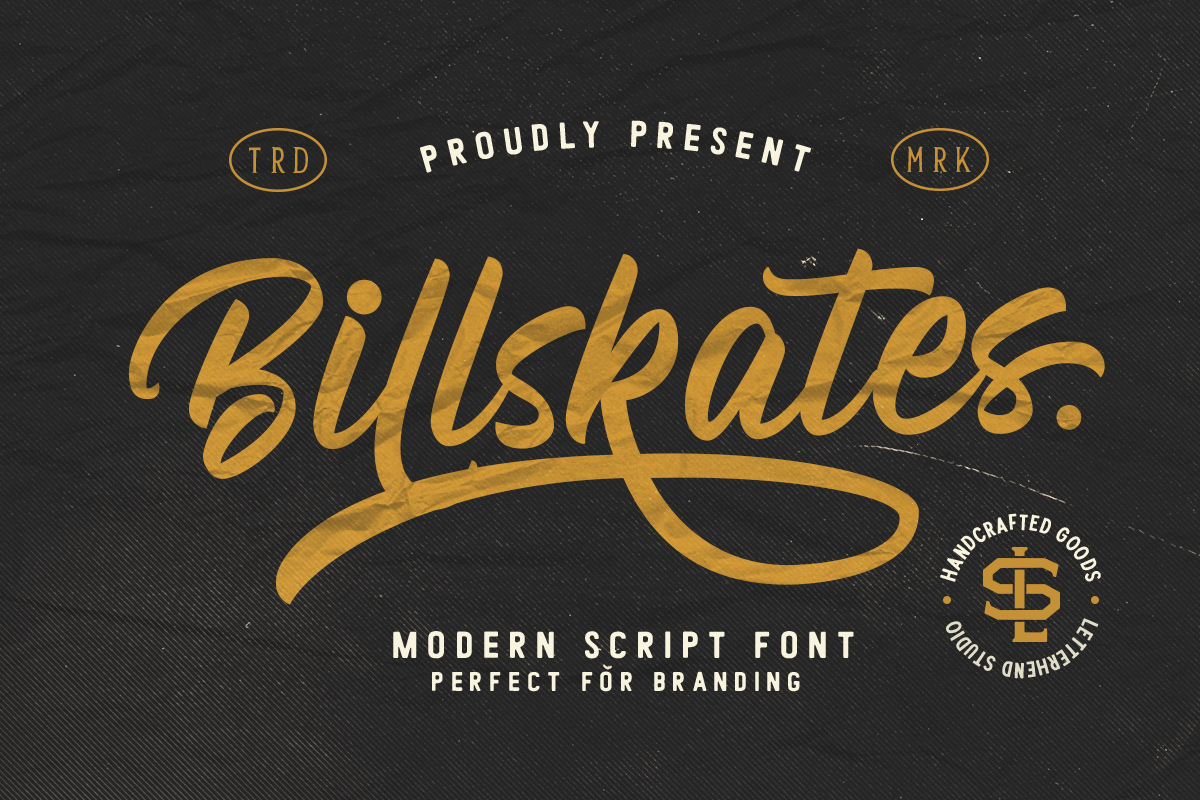
Billskates Script Font
The Billskates Script Font is ideal for skateboard brand logos, street art graphics, urban lifestyle magazines, graffiti-inspired designs, youth culture marketing, alternative music album covers, extreme sports merchandise, and rebellious brand identities. This dynamic typeface brings authentic street culture energy and underground artistic flair to any design project requiring urban edge and skateboarding authenticity.
What makes the Billskates Script Font so exciting is its perfect capture of skateboard culture's handwritten aesthetic through flowing letterforms that seem tagged with a marker during late-night skate sessions. The font features organic curves, natural variations, and authentic hand-lettered characteristics that evoke the creative spirit and rebellious energy of skateboard graphics and street art culture.
The Billskates Script Font family includes regular and bold weights, stylistic alternates, connecting ligatures, and street-inspired ornaments, providing designers with comprehensive tools for creating authentic skateboard brand experiences and urban design communications that celebrate underground culture and creative expression.
Ride the streets with style using the Billskates Script Font Free Download. This authentic typeface has become beloved among skateboard companies, street artists, and urban lifestyle brands who need typography that speaks the language of skateboard culture and underground creativity. The font features complete character support including uppercase and lowercase letters, numerals, punctuation, and skateboard culture-inspired symbols.
Whether you're developing branding for skateboard manufacturers, creating graphics for street art projects, or designing materials for youth-oriented brands, this font delivers unmatched street credibility. The hand-lettered characteristics maintain excellent readability while conveying the creative freedom and rebellious spirit that defines skateboard culture and urban artistic expression.
Street culture professionals appreciate the font's genuine representation of skateboard aesthetic without commercializing or sanitizing the underground culture that inspired it. The organic design elements create authentic connections with skateboard communities while helping brands establish credibility with audiences who value creativity, individuality, and the artistic expression that flows from street culture.
The Billskates Script Font excels in applications where street authenticity and creative rebellion are essential, from skateboard deck graphics to urban fashion branding. The font's underground heritage makes it particularly effective for brands that celebrate the creative spirit and independent culture of skateboarding and street art communities.